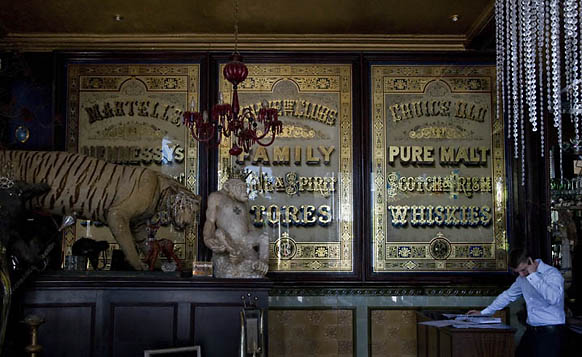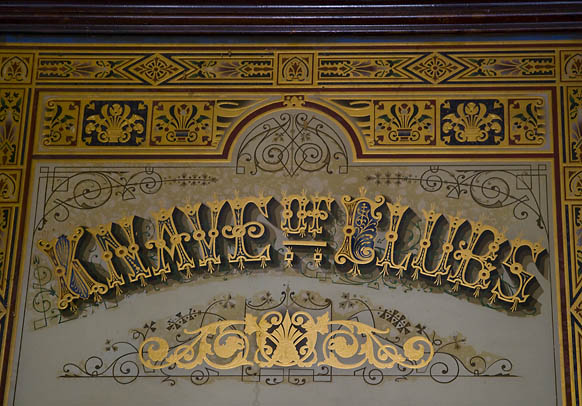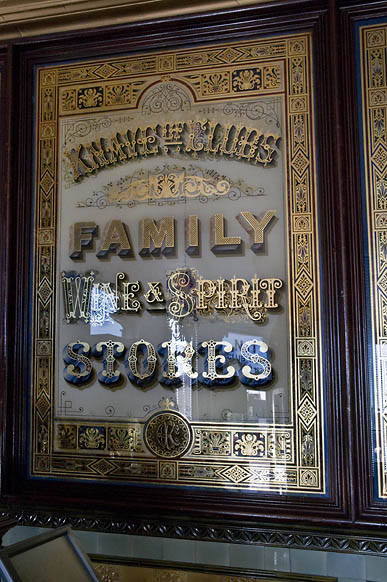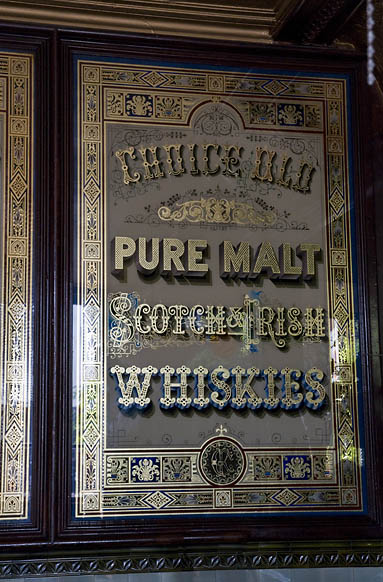
Guessing Game
Below is a photo from "Les Trois Garcons" in American thats "Lez-troyz Gar-cons" and of the three One is original......one restored and another is a complete fabrication to resemble what the original might have been....any takers? This is not unusual to see one of a series of glass adverts to be missing. Now I have to warn you, the correct answers won't arrive till the end of the week.....thats a good Friday. I "might" give a hint or three along the way.
Hows about this for an guess....
Looks like a well done job from this distance.
I'll bite. From L-R, restored, original, recreated.
Well, here it is - Good Friday evening & still no answer!
And not even a hint.
That's a tough one. Even looking at them up close it's hard to see much difference.
I'm going to guess, from Left to Right: Recreated, Original, Restored. I have some arbitrary reasons for my choices but it's mostly a guess.
Okay.....am getting a few photos from the graphics computer but have to ask both you (Dan) and Kelly why you picked as you have? It'll be much easier to see in the new pics coming soon. I was just trying to see if anyone was interested or even noticed for that matter.
Always interested Doug.
I kind of jumped in to get things started, sometimes people here are pretty reserved.
My guess was pretty much a shot in the dark. It's pretty hard to tell from the pictures you posted, but to me the shadows seemed stronger in the right panel and the compressed S's didn't seem in keeping with the other two panels. The extended kerning of the words family and stores in the middle panels made me suspect they were original and the background seems a bit lighter and the colours a bit more amber, which actually made me second guess myself as it could have been made from a more optically clear glass. I'm interested to find out what you think stands out that you thought would tell them apart.
The borders on all 3 look pretty much the same.
Some of the background on the middle one (like in the arch at the top) looks like it could be a bit faded so I took that into account in choosing it as the original. The top lettering on the one on the right is more similar to the middle one than the one on the left so I chose it as a restored original. (However, this could be a case for the one on the right being a recreation, as they would be more careful to simulate the original.)
Thus, as I said, a lot of what determined my thinking as somewhat arbitrary.
Looking forward to seeing the better pics. It's pretty fascinating.
Here's a couple more from the day I was there. I'm sure I have more but they will be buried deeply in a DVD of images and so as the one on the far left was restored....and hard to get a photo of..... it ain't included. pretty amazing work concidering one of them is only a few years old huh?
So no april fools day then?....
Is it known who made the panel that has been done a few years back?
Hi Robare....wish I knew the answer to those questions. Me thinks you'd need to live there or have lots of time and have access to archives to be able to dig that info up. The same craftsman has work here and there in old London pubs and you get used to and recognize his style. There seem to have been a few craftsmen working in that way. Will dig up a few more photos to attach here later this weekend.